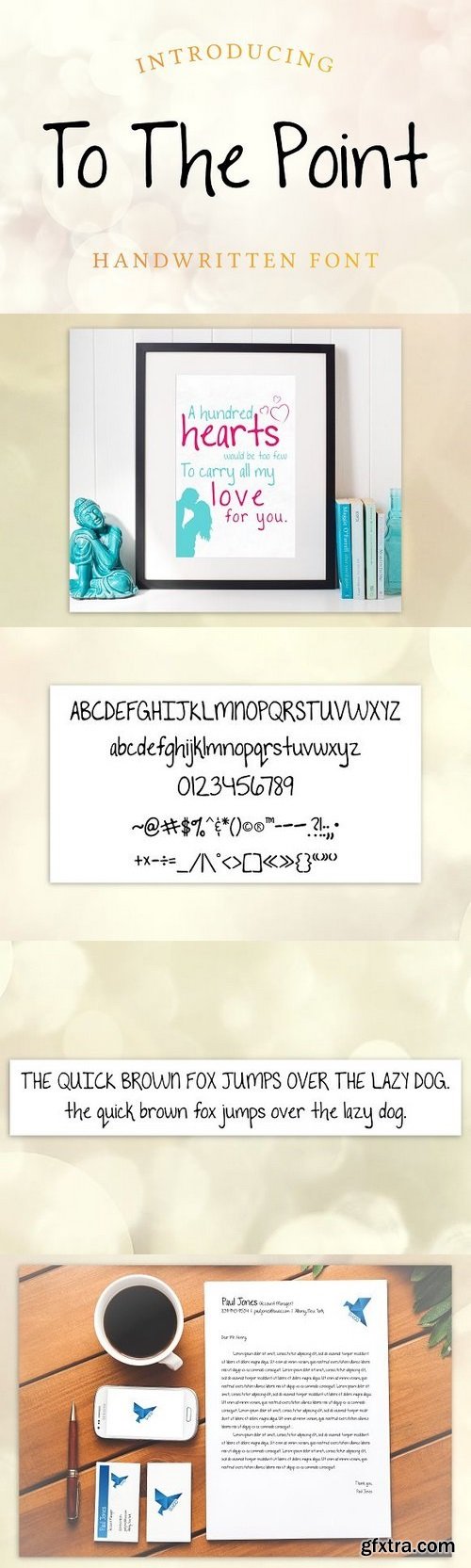
To The Point
Any purchases made on Creative Market will be taken as donations. Thank you! To The Point was created by handwritten pen and was then finalized into vector format for font usage. It is a great natural font that is not too perfect or imperfect. This handwritten font is perfect for invitations, wall prints, home decor, branding and much more. Our license allows crafters and designers plenty of freedom for creativity. Feel free to share this font with others or have it available for download! You may not sell this font or any part of the font as-is. Credit is not required but is always appreciated!